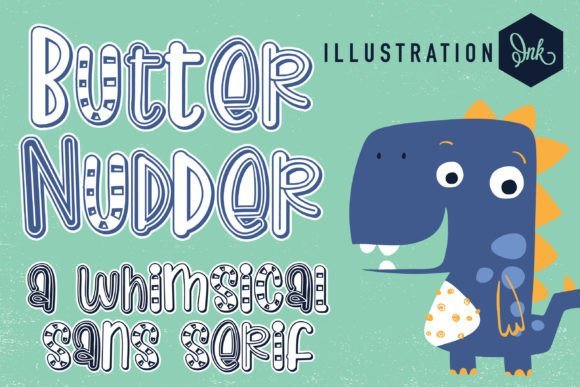
Introduction to Butter Nudder Font
This whimsical, hand-crafted font features a mix of styles, stripes, in-lines and more.
3D version included A hand-crafted font is a font that is designed to feel unique and crafty It is often used for invitations, greeting cards, and other items.
Key Features of Butter Nudder Font